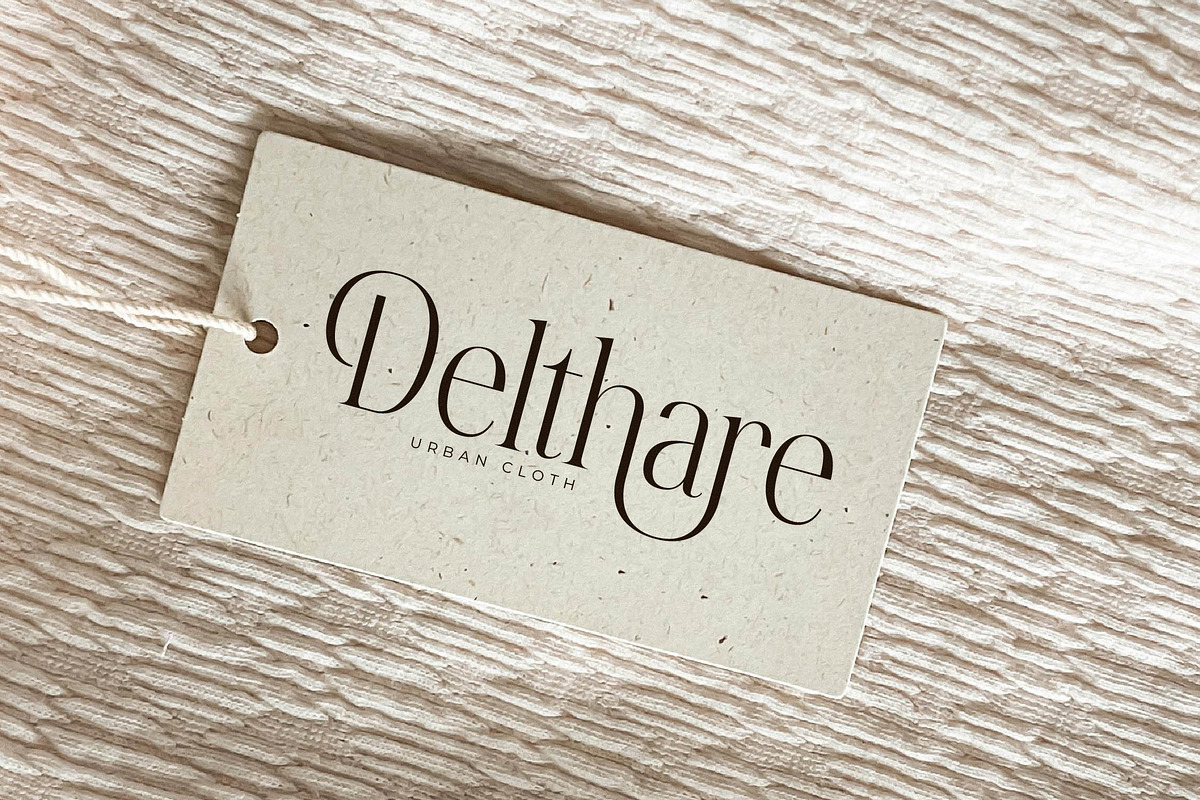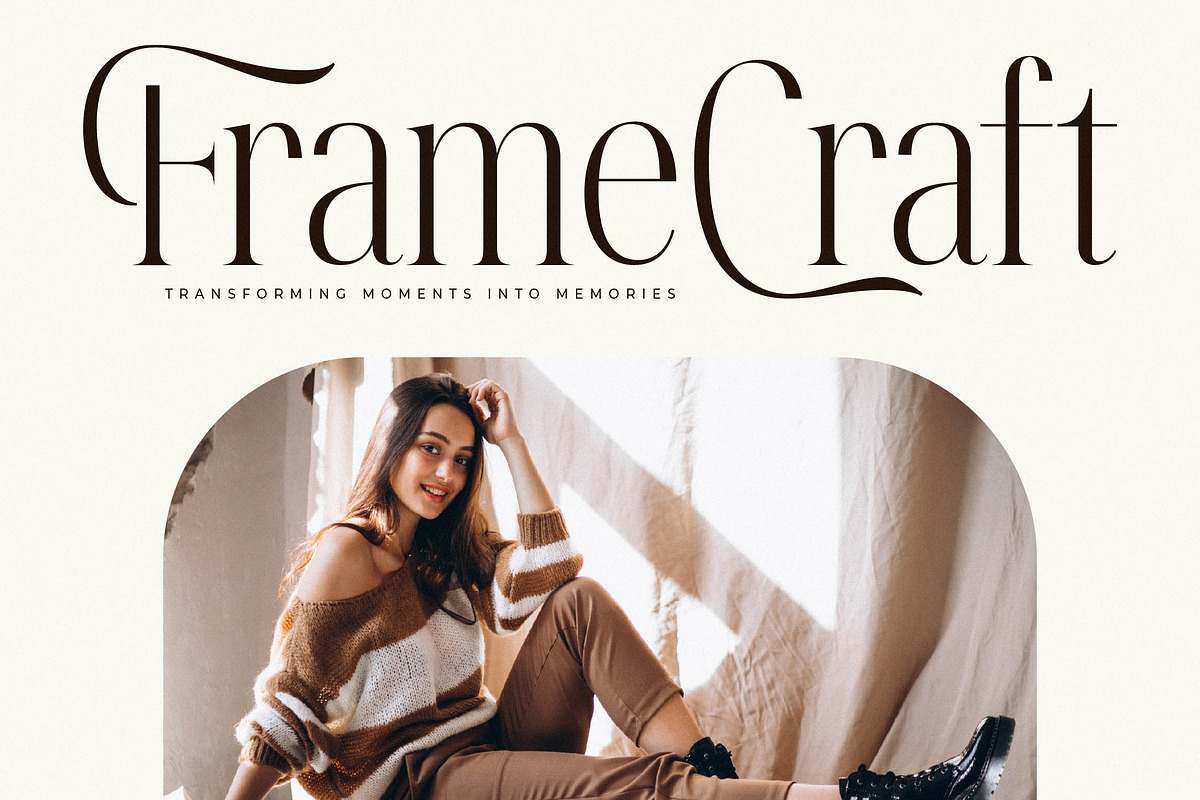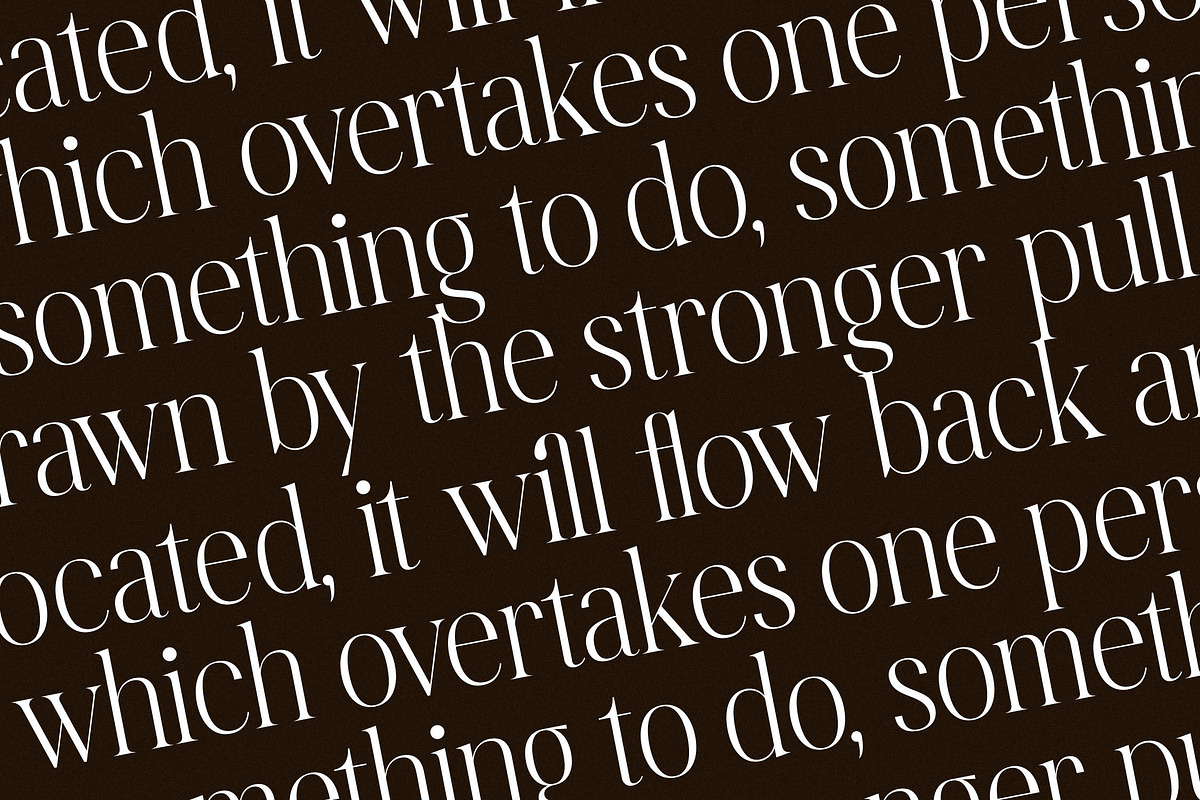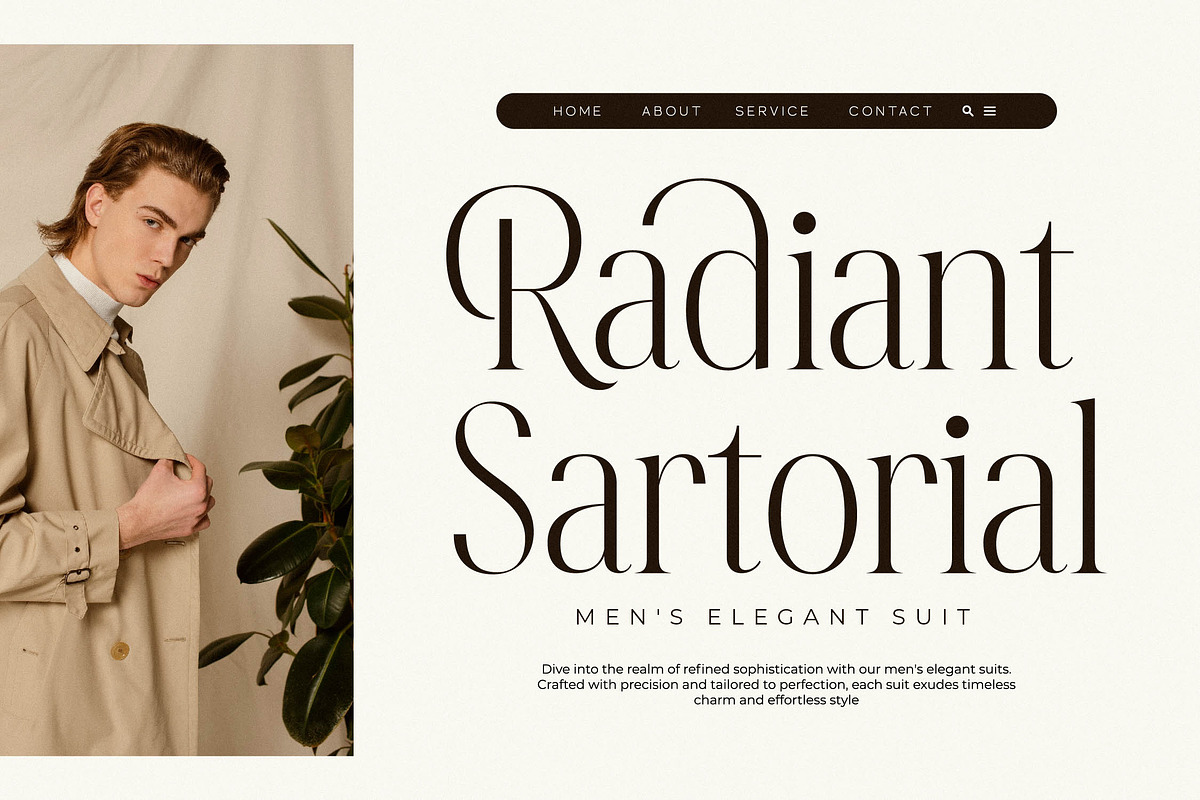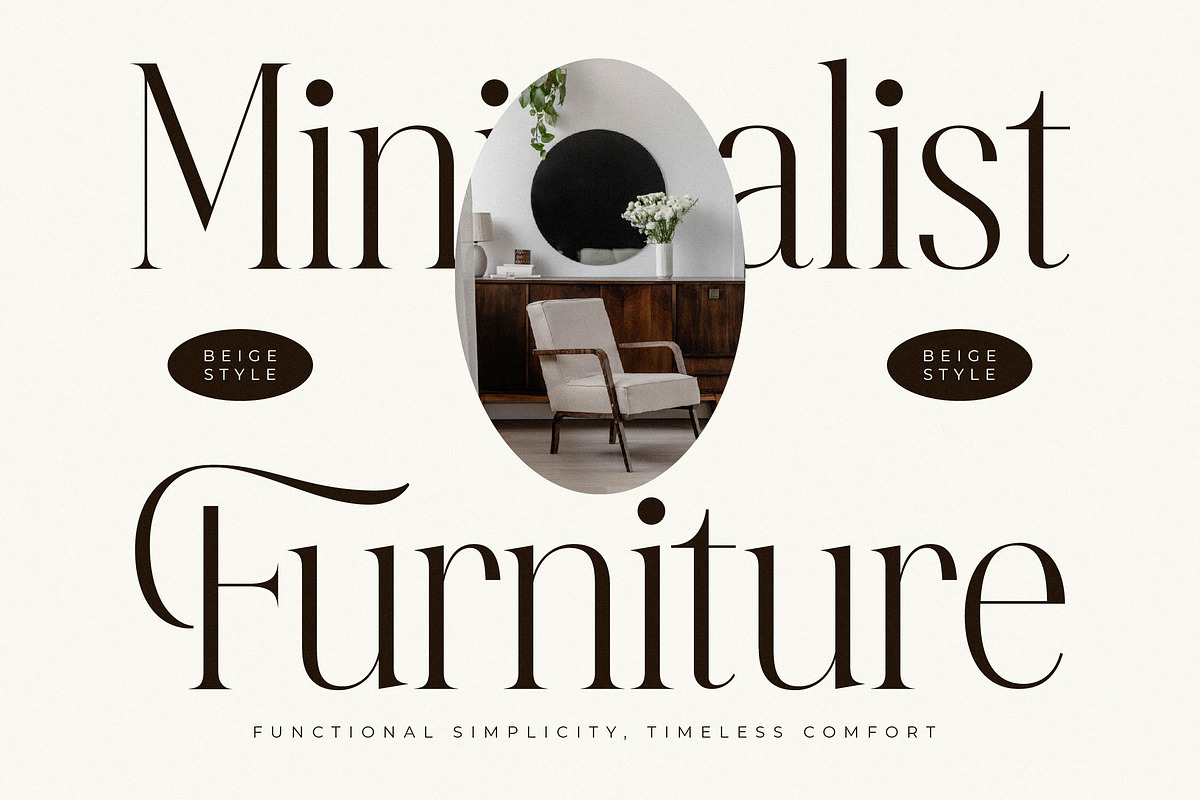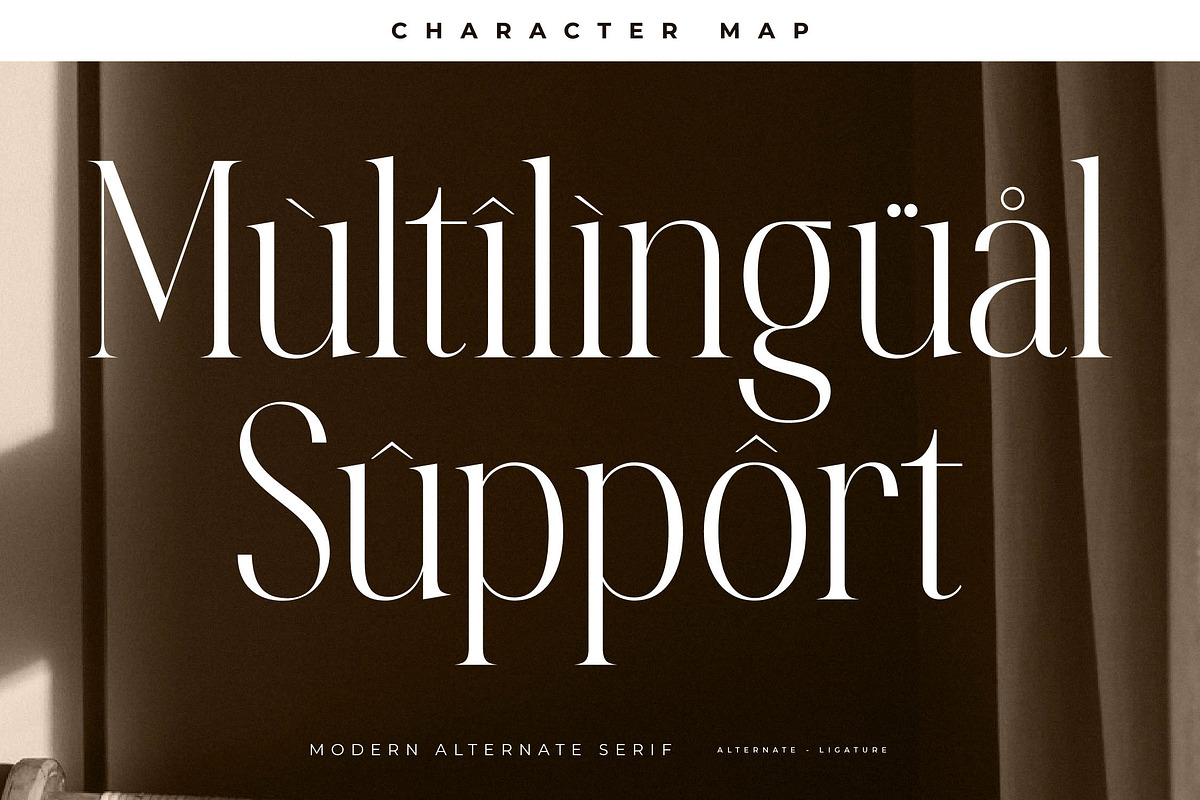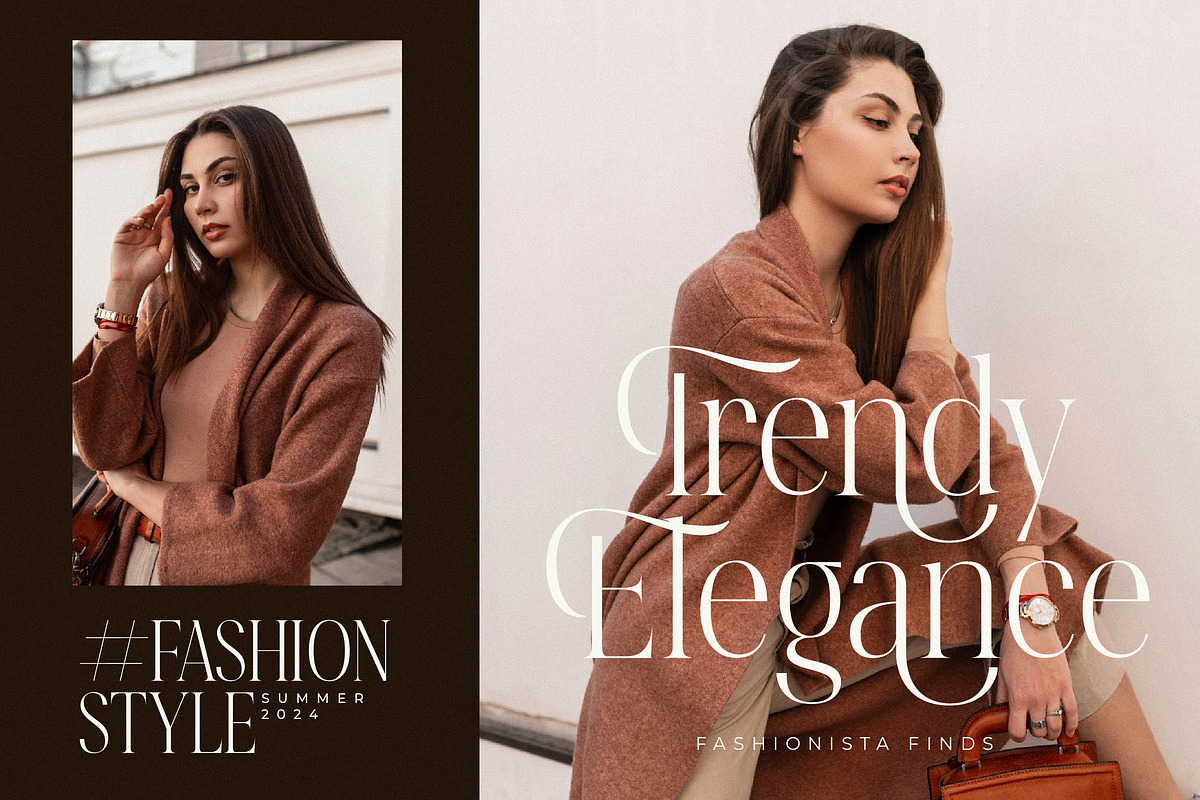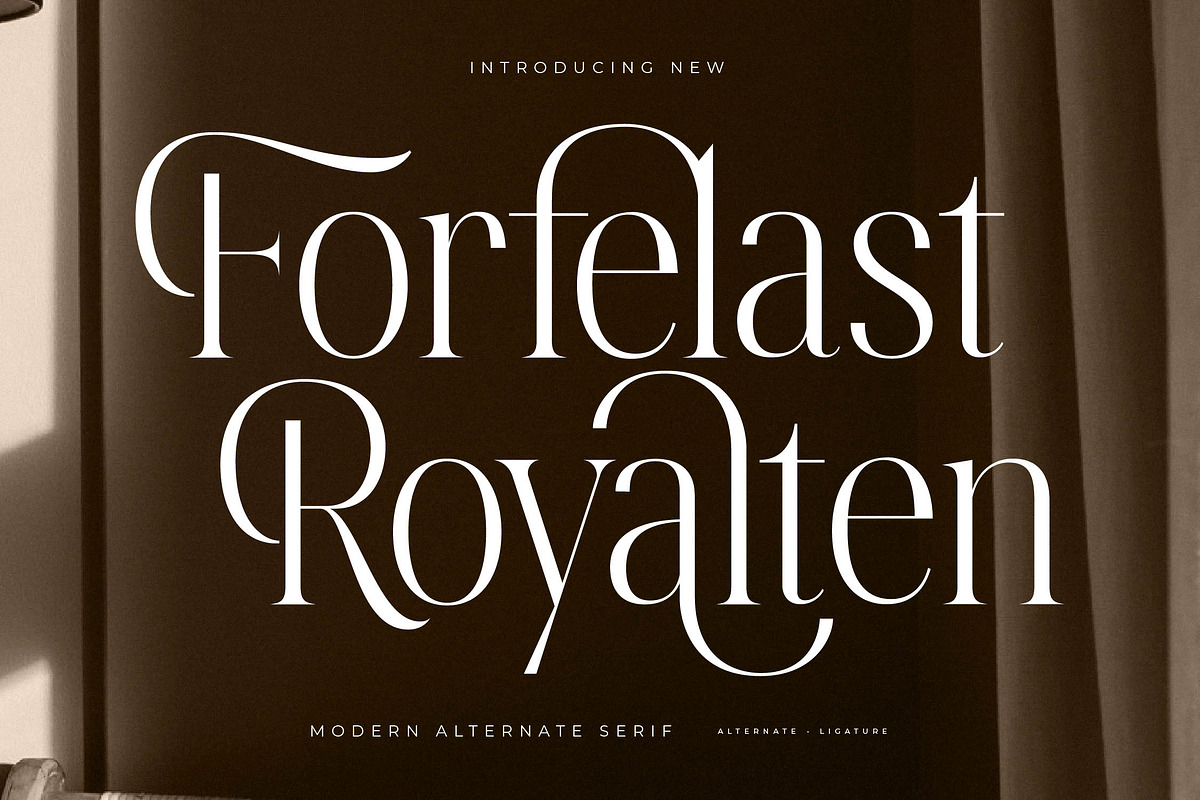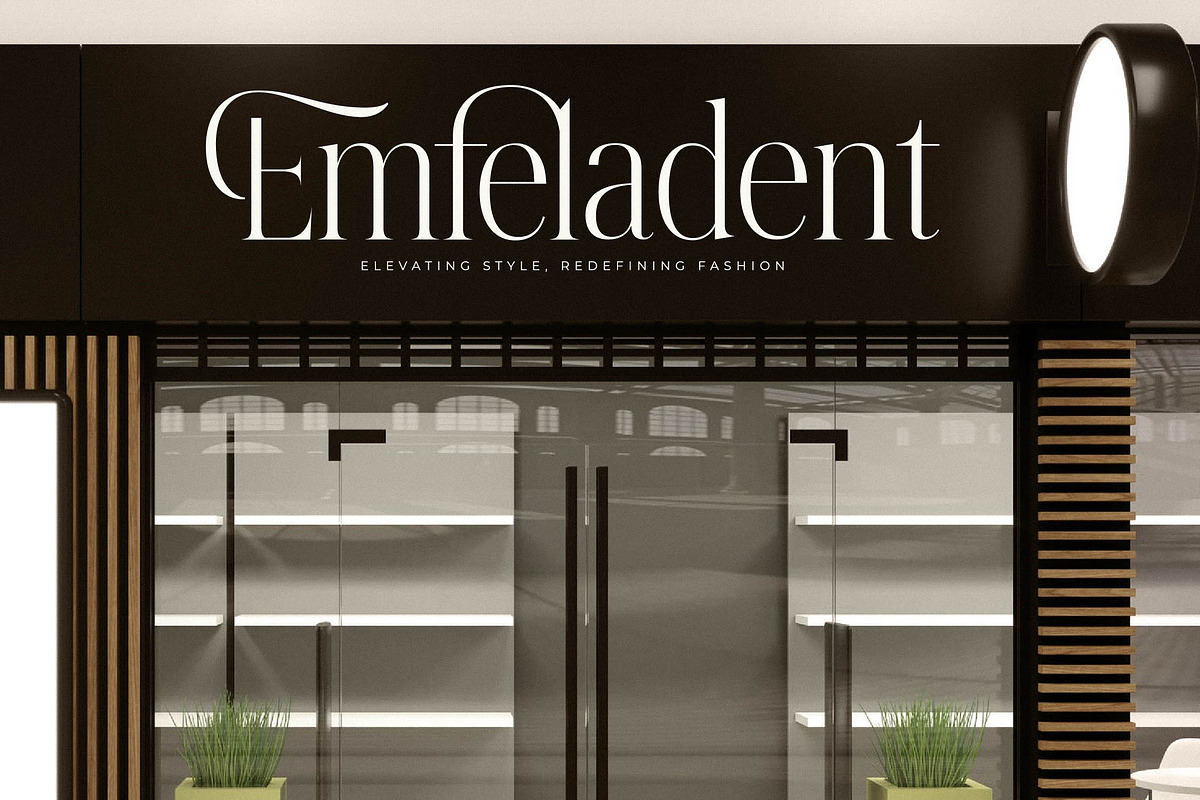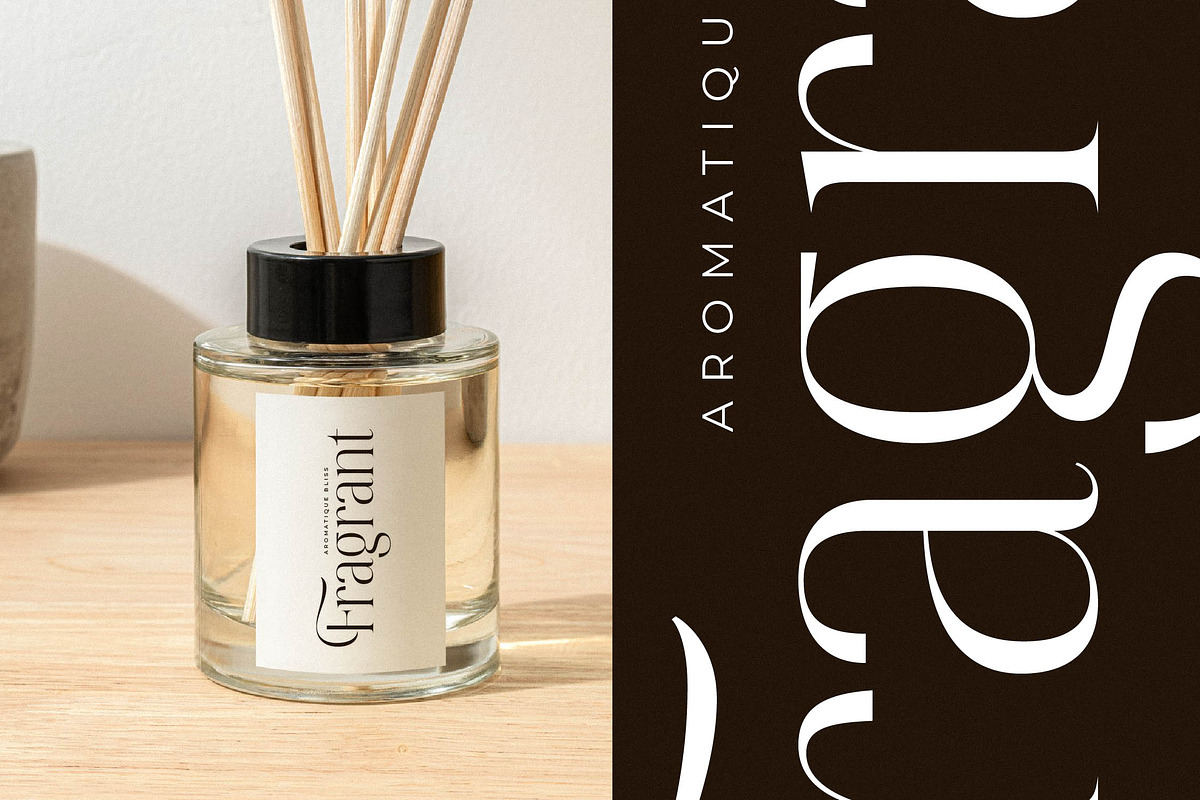
Forfelast Royalten Modern Alternate
Forfelast Royalten – Modern Alternate Serif , from Letterena, is a Luxury Serif font, suitable for any projects such as: logos, branding projects, homeware designs, product packaging, mugs, quotes, posters, shopping bags, t-shirts, book covers, name card, invitation cards, greeting cards, label, photography, watermark, special events, and all your other luxury and beautiful projects that need a Luxury serif taste.